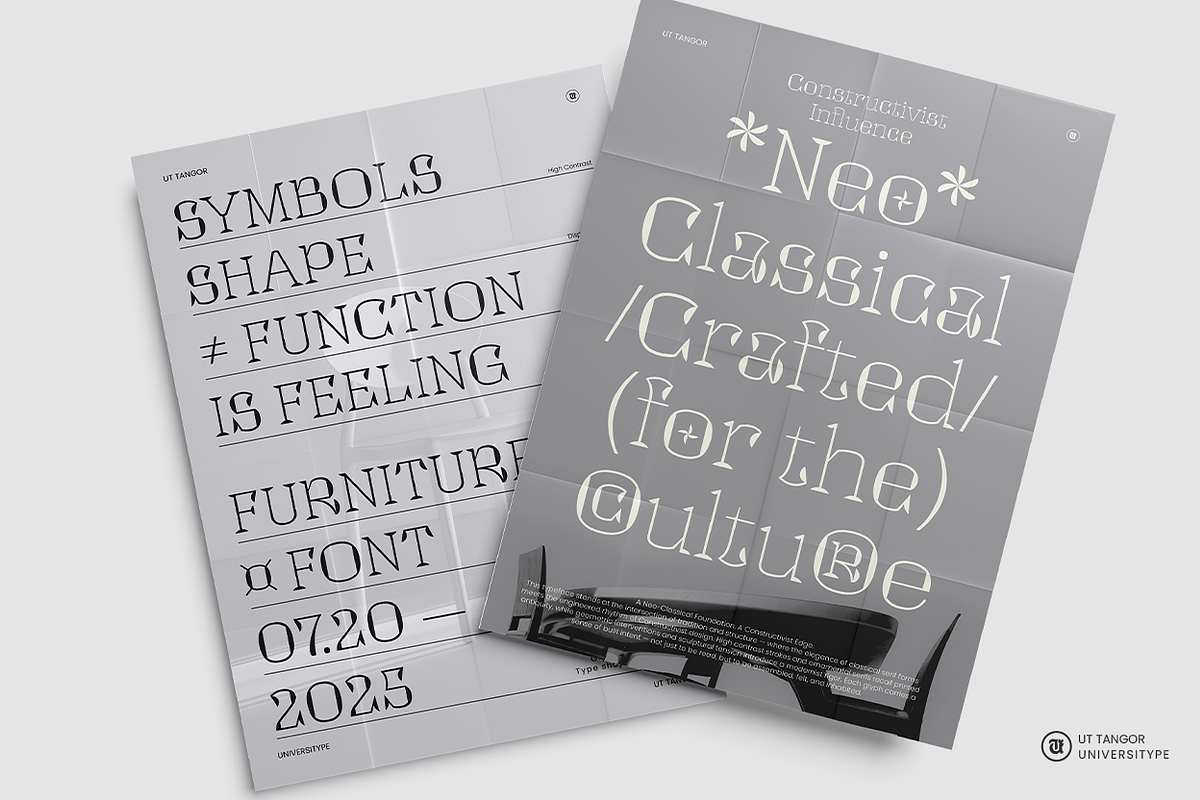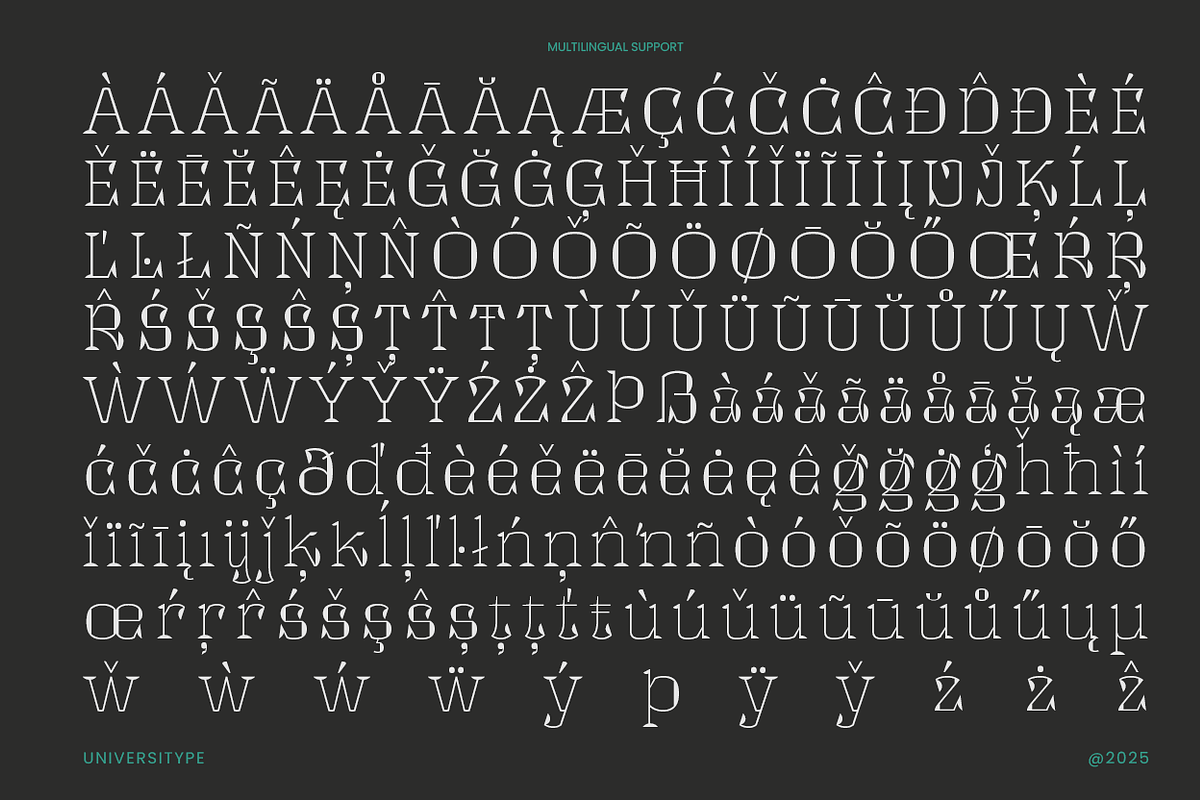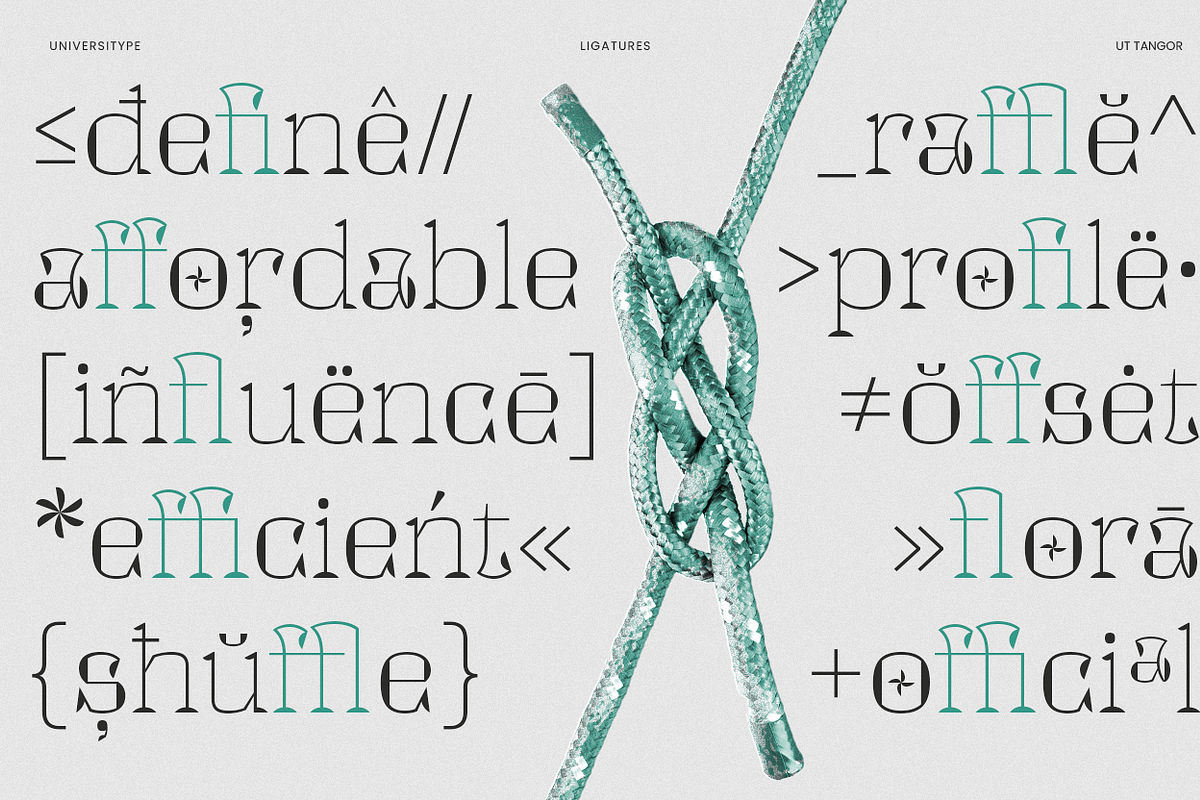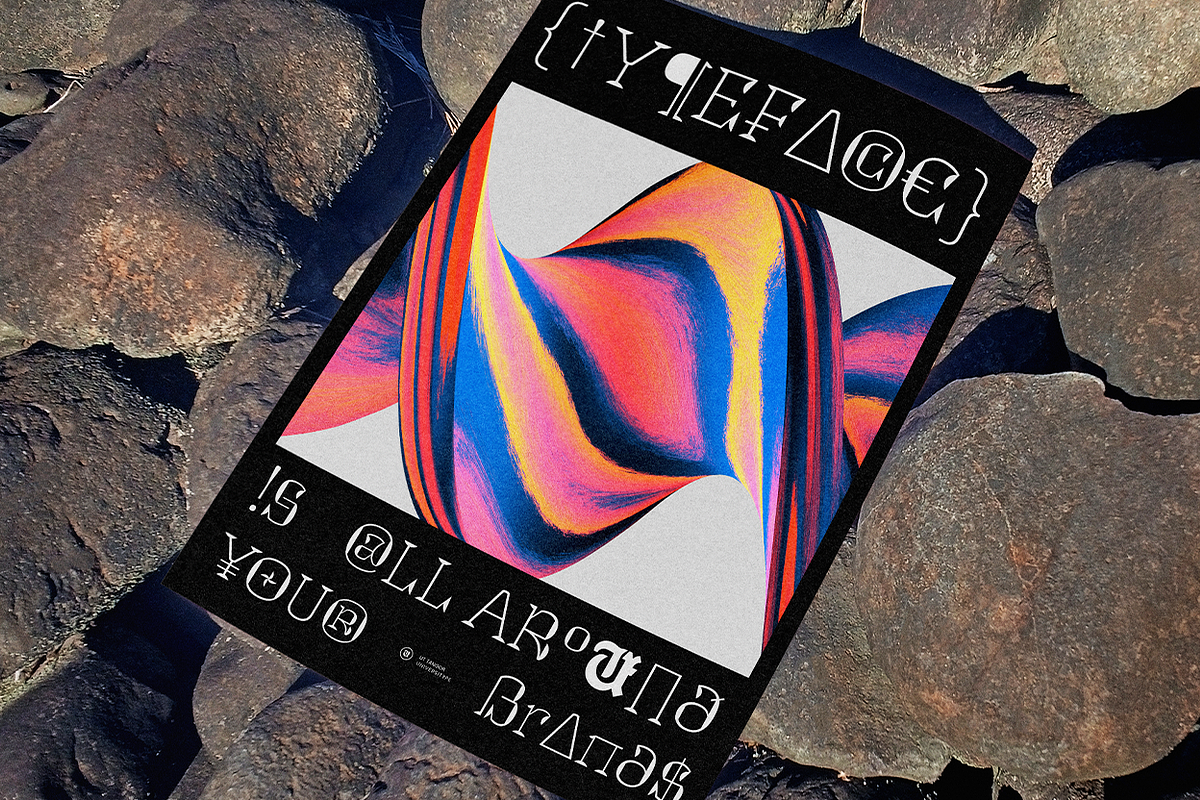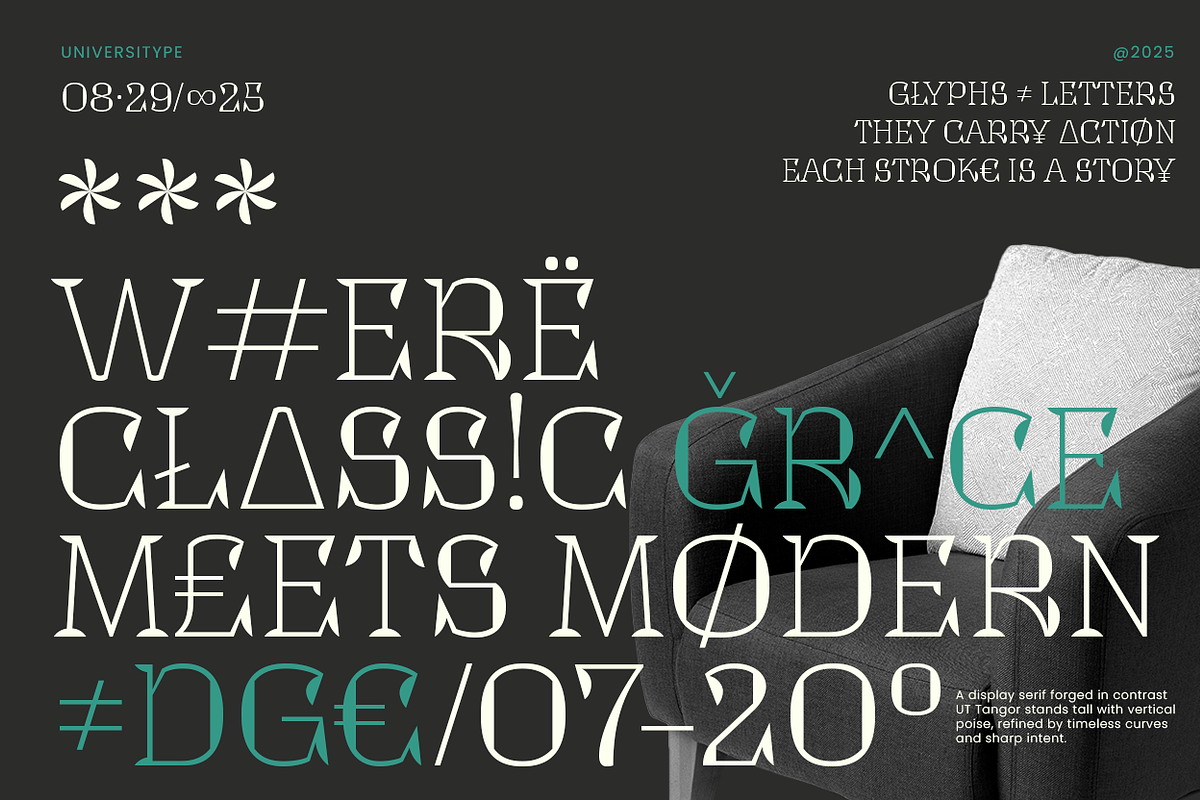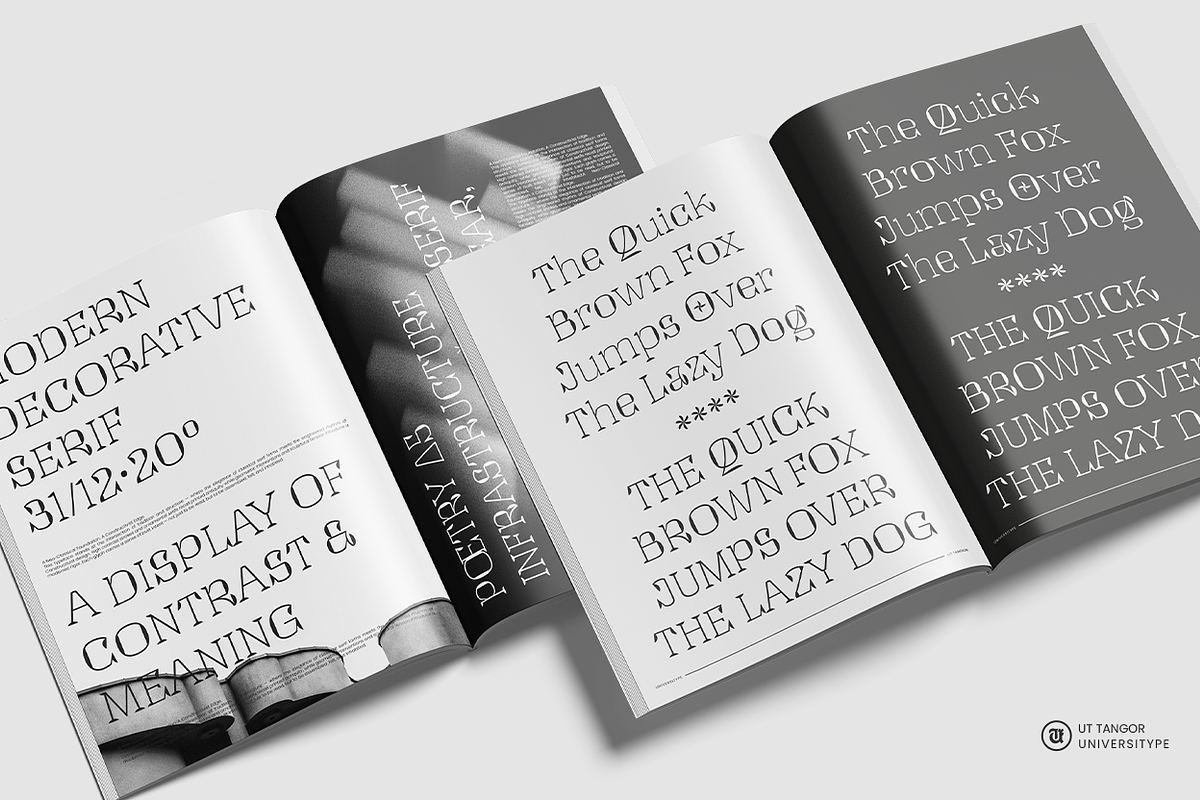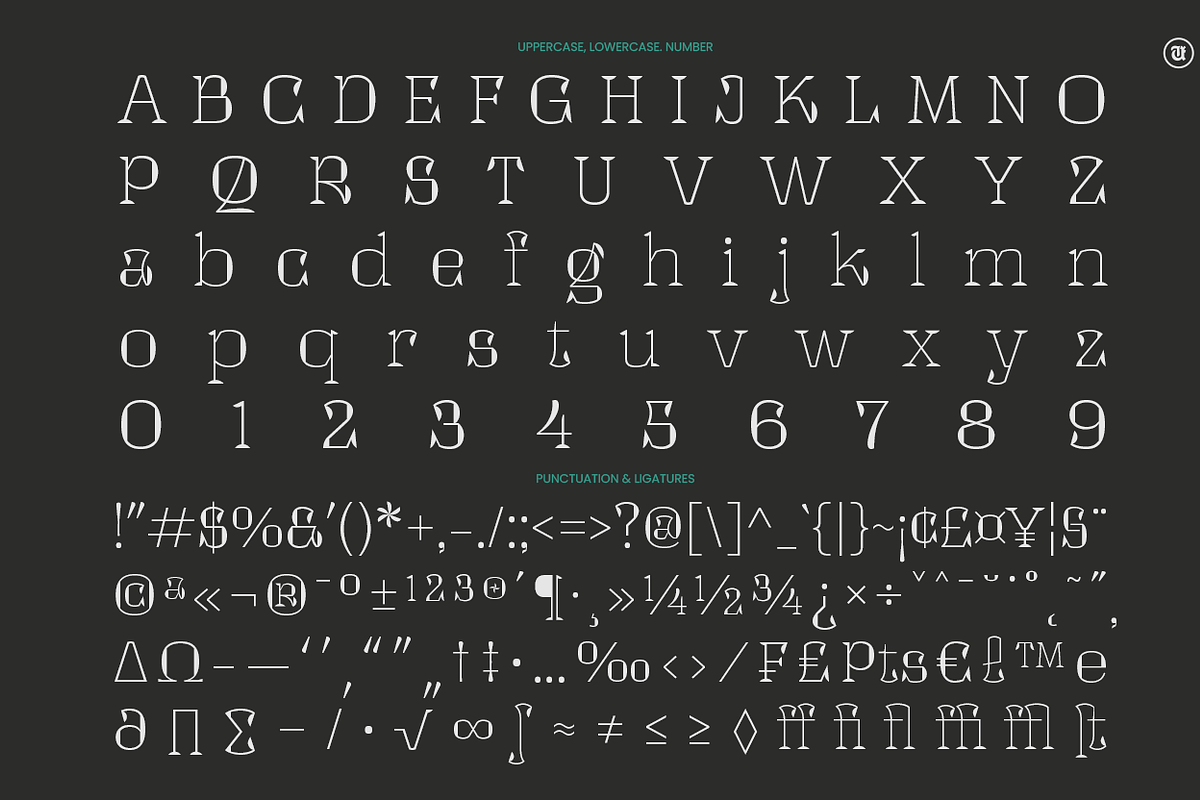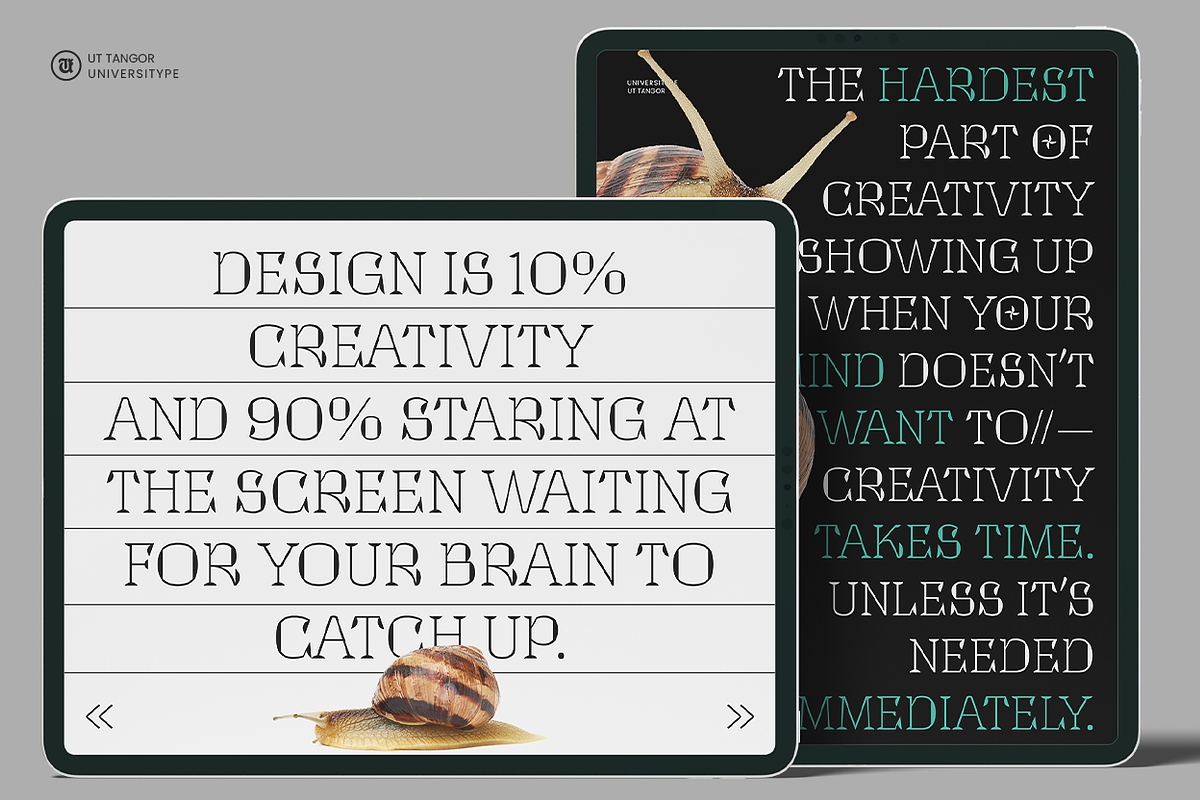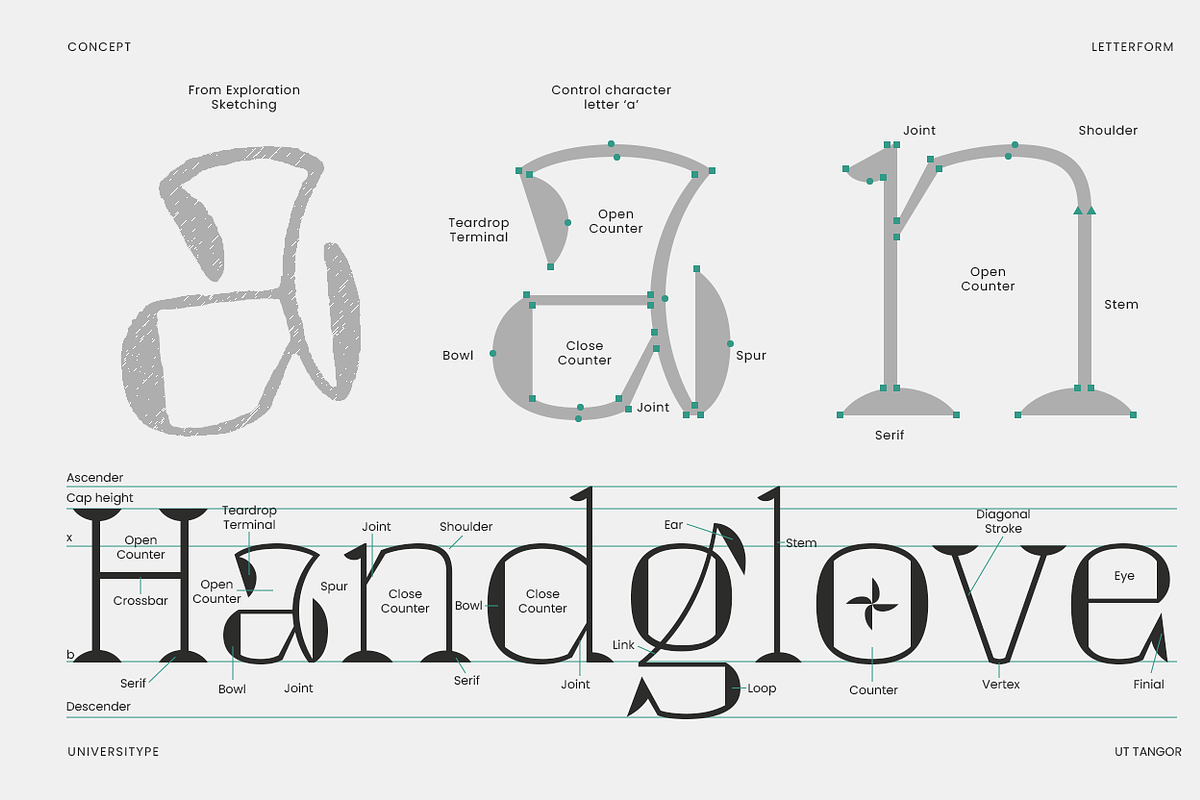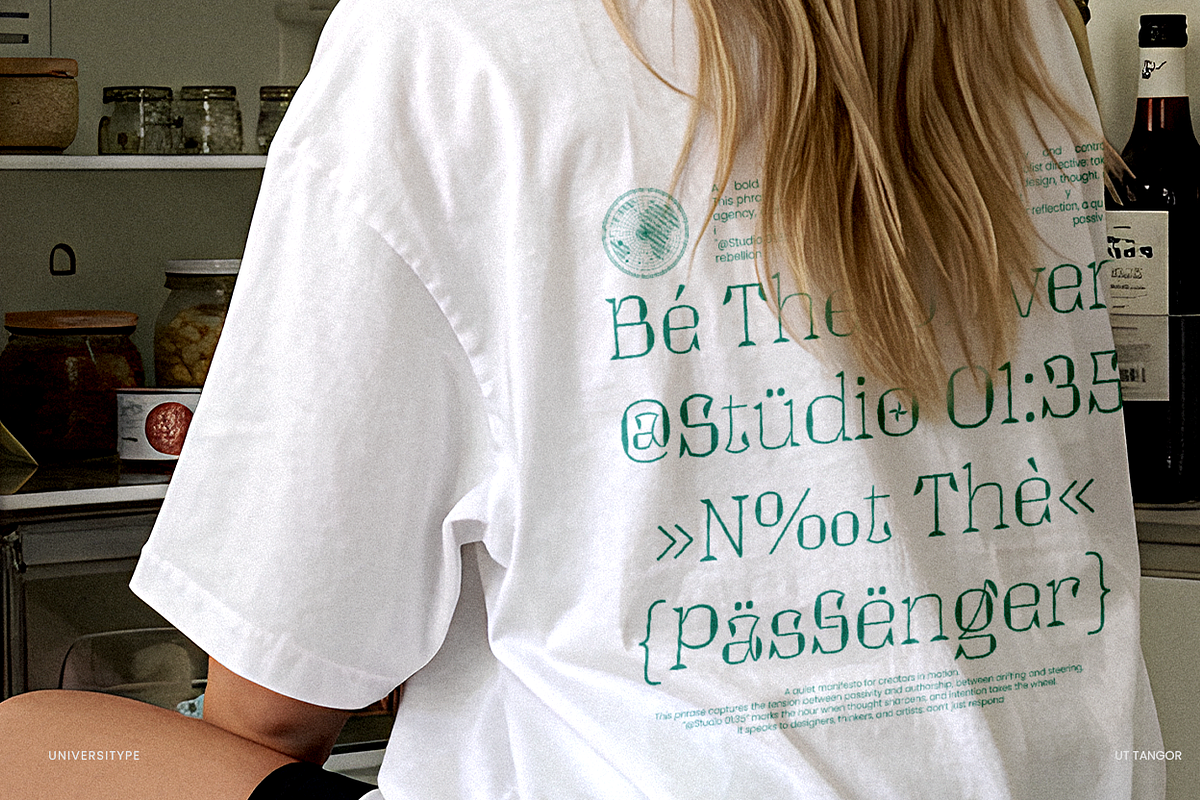
UT Tangor - A Decorative Serif
UT Tangor is a distinctive decorative serif typeface that masterfully blends classical elegance with contemporary flair. Designed for impact and refined aesthetics, UT Tangor stands tall with vertical poise, featuring sophisticated curves and sharp, intentional details. It’s a font that doesn’t just convey words, but imbues them with grace and character, making it ideal for projects that demand a unique and memorable visual presence.
- High Contrast Design: Striking visual appeal with a clear distinction between thick and thin strokes.
- Unique Decorative Elements: Intricate details within characters, such as subtle crosses, circular forms, and elegant leaf-like terminals, add a touch of artistry.
- Extensive Ligature Support: A rich set of ligatures enhances readability and provides beautiful typographic variations.
- Multilingual Support: Designed to cater to a global audience with comprehensive character sets.
- Versatile Application: Perfect for headlines, branding, editorial design, posters, and any creative endeavor where a blend of classic and modern is desired.
Inspiration Behind the Design UT Tangor draws its inspiration from a fascinating intersection of Neo-Classical foundations and Constructivist influences. The font embodies the idea that “Symbols Shape Function is Feeling,” transforming typography into a form of visual furniture. It reflects a quiet rebellion against the mundane, encouraging designers to be the drivers of their creative journey, not just passive passengers. The design philosophy embraces the notion that “Creativity Takes Time, Unless It’s Needed Immediately,” suggesting a balance between thoughtful development and responsive execution.
- Glyph Count: 390 Glyphs, offering a wide range of characters for diverse linguistic and design needs.
- Character Set: Includes uppercase, lowercase, numbers, and an extensive array of punctuation and ligatures.
- Multilingual Support: Comprehensive character coverage for various languages, ensuring global usability.
UT Tangor is more than just a font; it’s a statement. It’s where class meets modern, where every stroke tells a story, and where design truly comes alive.